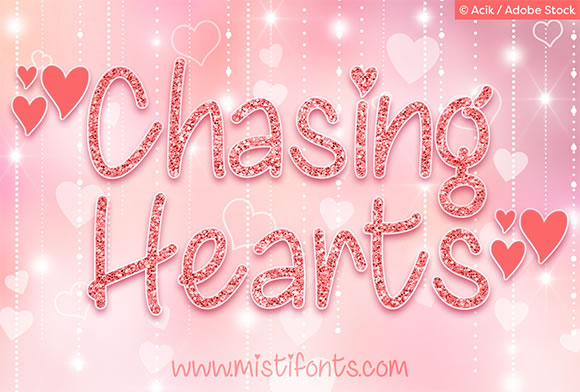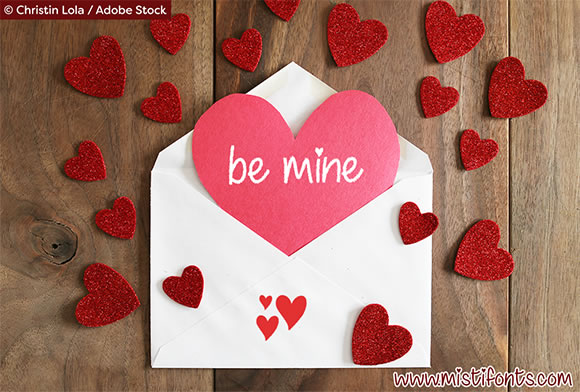
Chasing Hearts Font
About Chasing Hearts Font
Chasing Hearts is a casual, handwritten font that is perfect for Valentine’s Day — as well as all year round — on greeting cards, product labels, craft projects, logos, and so much more!